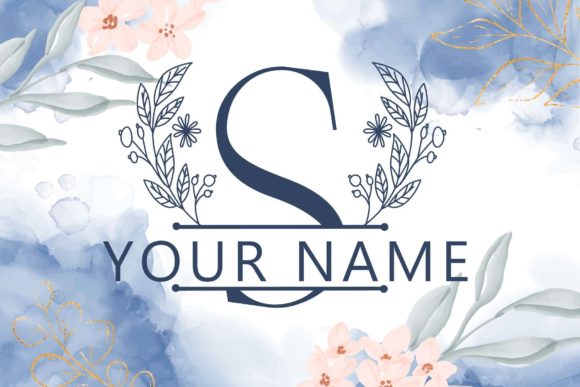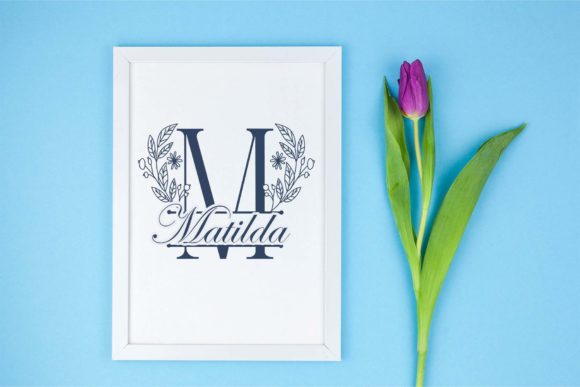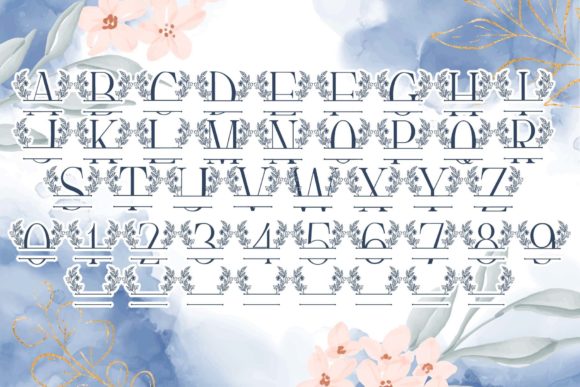
Introducing the Blue Spring Line Monogram Font: A Dainty and Unique Decorative Font
The Blue Spring Line Monogram Font is a beautiful and charming decorative font that is sure to add a touch of romance and elegance to any design project. This lovely font is perfect for crafters, designers, and anyone looking to add a personal touch to their work. In this article, we’ll take a closer look at the Blue Spring Line Monogram Font, its features, and how you can use it to create stunning designs.
A Dainty and Unique Decorative Font
The Blue Spring Line Monogram Font is a dainty and unique decorative font that is sure to capture the hearts of designers and crafters alike. Its delicate lines and curves make it a perfect choice for creating romantic and lovely looking designs. Whether you’re working on a wedding invitation, a love letter, or a favorite design project, this font is sure to add a touch of elegance and sophistication.
Features of the Blue Spring Line Monogram Font
The Blue Spring Line Monogram Font comes with a range of features that make it a versatile and easy-to-use font. Some of its key features include:
• Unique and decorative design: The Blue Spring Line Monogram Font has a unique and decorative design that is sure to stand out from the crowd.
• Dainty and elegant lines: The font features dainty and elegant lines that are perfect for creating romantic and lovely looking designs.
• Perfect for wedding invitations and love letters: The font is perfect for creating beautiful wedding invitations, love letters, and other romantic designs.
• Easily customizable: The font is easily customizable, making it easy to use in a variety of design projects.
Using the Blue Spring Line Monogram Font in Your Designs
The Blue Spring Line Monogram Font is a versatile font that can be used in a variety of design projects. Here are some ideas for using this beautiful font:
• Wedding invitations: Use the Blue Spring Line Monogram Font to create beautiful and elegant wedding invitations that will set the tone for the big day.
• Love letters: Add a touch of romance to your love letters with this lovely font.
• Stationery and greeting cards: Use the font to create beautiful stationery and greeting cards that are sure to impress.
• Design projects: Add the Blue Spring Line Monogram Font to your favorite design projects, such as posters, flyers, and brochures.
Tips for Getting the Most Out of the Blue Spring Line Monogram Font
Here are some tips for getting the most out of the Blue Spring Line Monogram Font:
Font Name Blue Spring Line Monogram Font
The Blue Spring Line Monogram Font is a beautiful and charming decorative font that is sure to add a touch of romance and elegance to any design project. With its delicate lines and curves, this font is perfect for creating lovely looking designs that are sure to capture the hearts of designers and crafters alike. Whether you’re working on a wedding invitation, a love letter, or a favorite design project, this font is sure to be a great addition to your design toolkit.